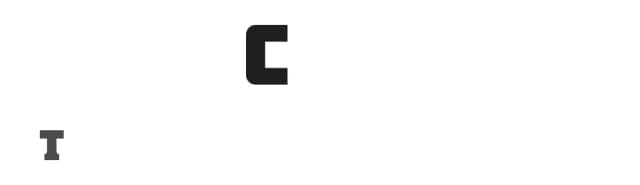
About Rocket Font
Rocket is a decorative font designed by Naan Type Studio. It includes 236 glyphs, a regular weight, OTF (CFF) format, and 211 languages. Rocket is free to download; check the license details on this page before commercial use. Decorative fonts like Rocket work best for logos, posters, packaging, and standout headlines.
Rocket Font is a decorative font that shines as a display or heading face. Pair it with a clean sans-serif or serif font for body text β the contrast creates a clear hierarchy while the two styles stay balanced and easy to read.
Rocket Font
Rocket Font is a decorative typeface by Naan Type Studio, ideal for logos, invitations, branding, and creative projects.